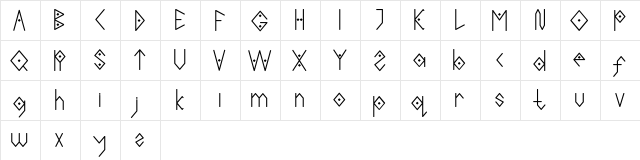
Shalltear Regular
Design Context for Shalltear Typeface
Shalltear is a composed and adaptable typeface that performs quietly and consistently across a wide range of design contexts.